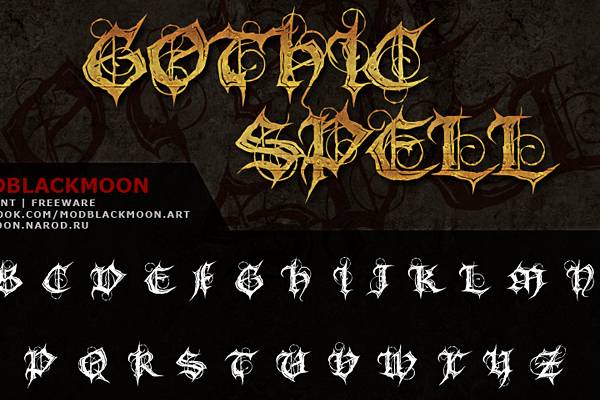
Now you can dive into the dark and delightful world of blackletter fonts with this Gothic Font Generator tool - it's like having your very own design wizard! Whether conjuring up spooky invitations for a haunted party or adding a touch of medieval mystique to your blog banners, this tool lets you weave a tapestry of unique designs. Unleash your inner goth and sprinkle a bit of that eerie charm on everything from witchy greeting cards to cryptic social media posts ... it's design magic at your fingertips! Our gothic lettering tool is simple and easy to use - why not give it a go below.